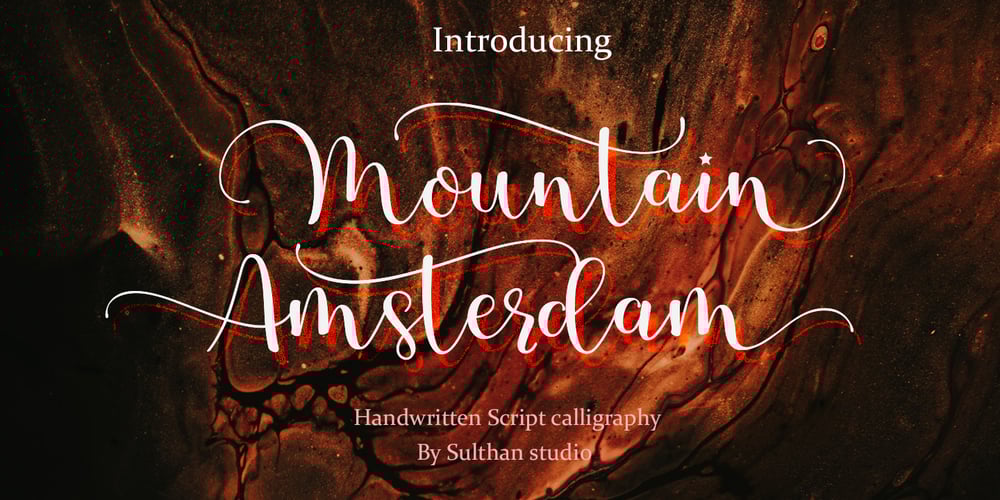
Mountain msterdam
Mountain msterdam font
Mountain msterdam Font Family was designed by Nasrullah and published by Sulthan Studio. Mountain msterdam contains 1 styles and family package options. Mountain amsterdam, new & modern script with handcrafted calligraphy style, decorative characters and dancing baselines! So beautiful in invitations like greeting cards, branding materials, business cards, quotes, posters and more !!Mountain amsterdam – includes many alternative characters. Coded with Unicode PUA, which allows full access to all additional characters without having any special design software. Mac users can use Font Book. Windows users can use the Character Map to view and copy any of the additional characters to paste into your favorite text editor. For people who have opentype capable software: Alternatives can be accessed by activating the “Alternate Styles” and “Ligature” buttons on Photoshop’s Character panel, or via any software with a glyph panel, eg. Adobe Illustrator, Photoshop CC, Inkscape.